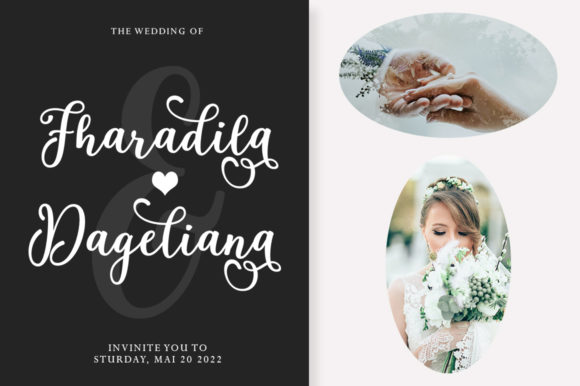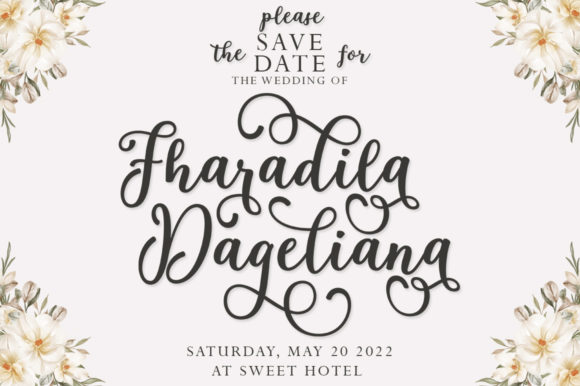
The Farmhouse Font
db-ku.com - Script & Handwritten -- The Farmhouse is a delicate and fashionable script font. It is perfect for any branding project such as logos, t-shirt printing, creative products, and more. This font is PUA encoded which means you can access all of the glyphs and swashes with